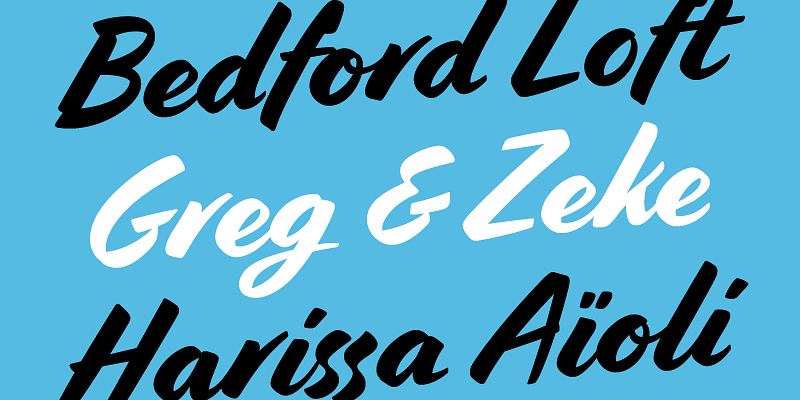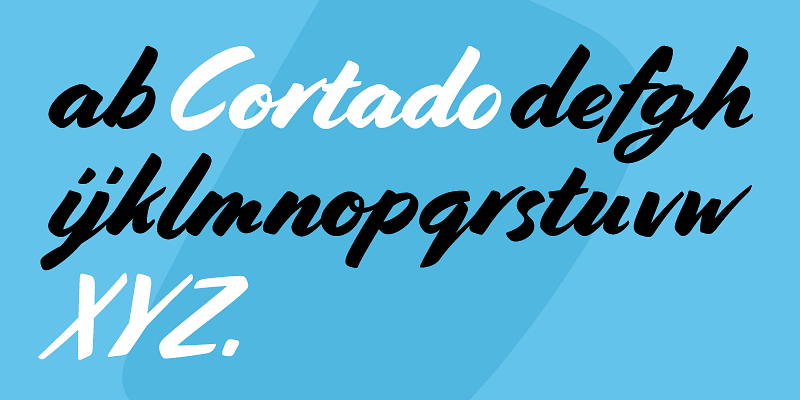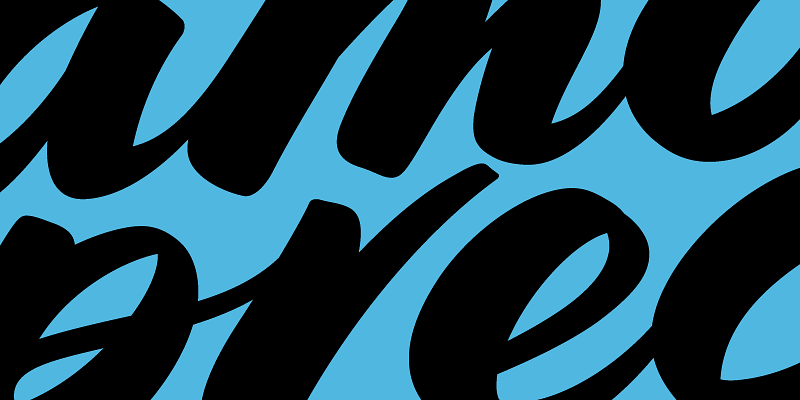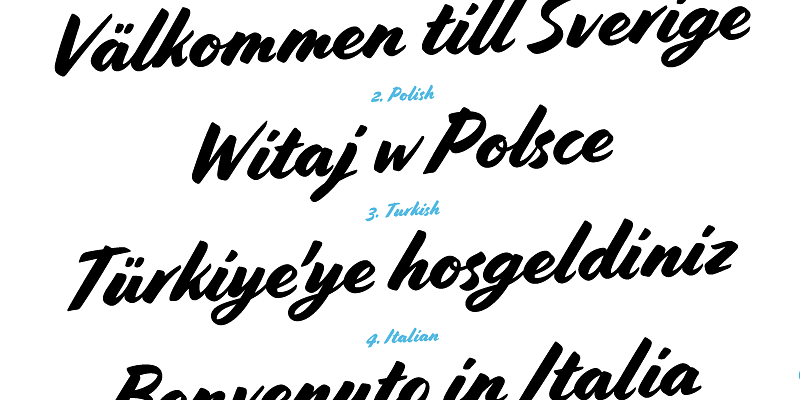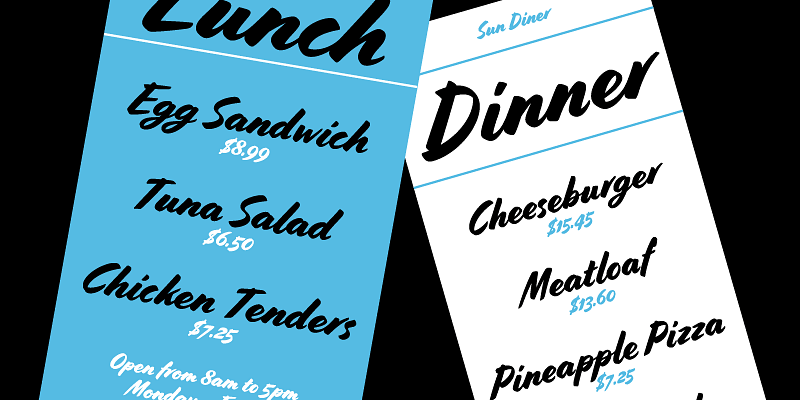
Inspired by illustrator Cecilia Carlstedt’s hand-painted script, Cortado translates the spontaneous energy of pointed brushwork into digital type. With a strikingly fresh aesthetic, Cortado has breezy confidence and mid-century cool.
To mimic hand lettering, nimble OpenType programming automatically alternates cursive connections with breaks between characters. Ligatures step in to prevent awkward collisions, and words end in natural brushstrokes. Repeated letters have subtle shape variations, for an authentic, self-assured feel.
You can fine-tune every feature yourself, but why not let Cortado do the heavy lifting? Kick back with a café cortado (the Spanish name for espresso cut with milk). Cortado’s got this—with fully-caffeinated swagger.